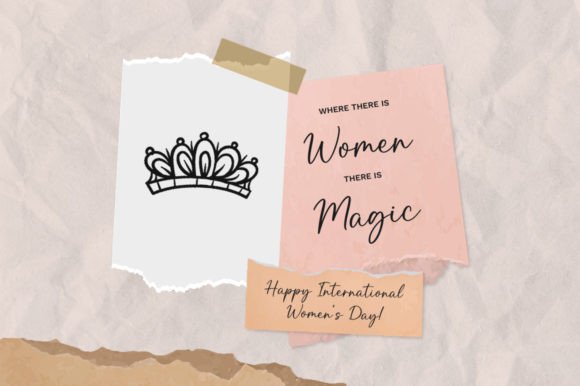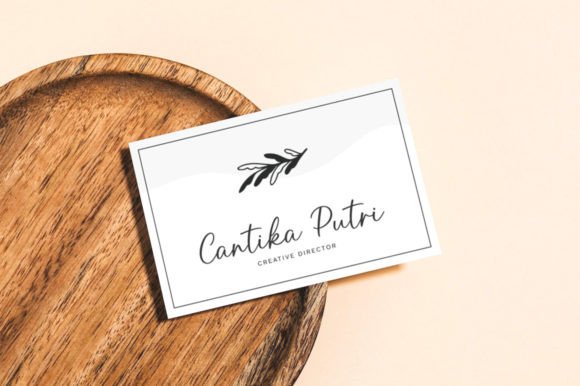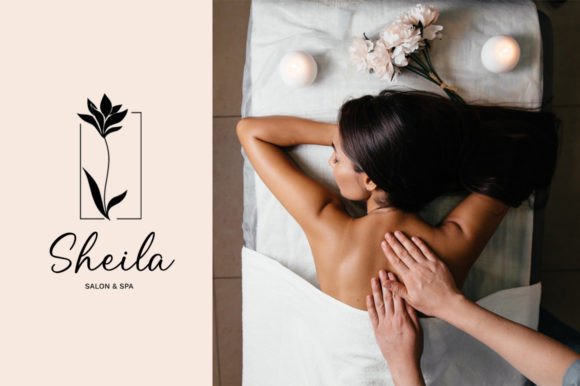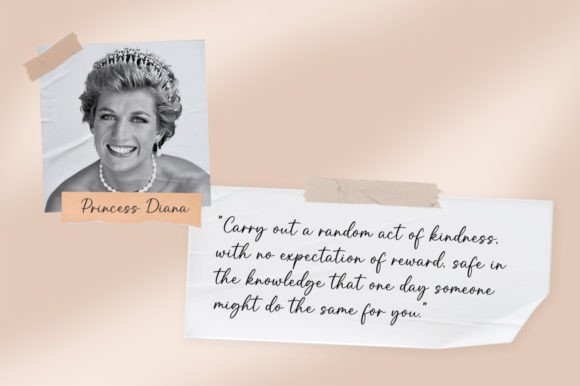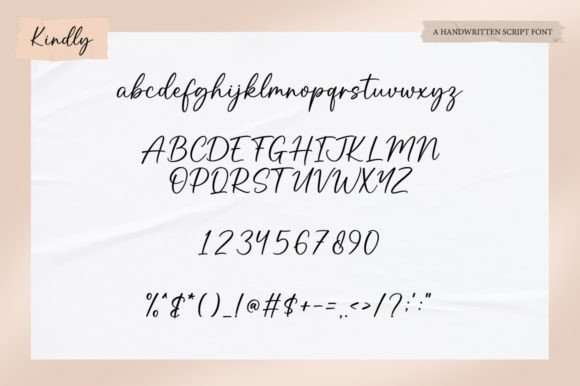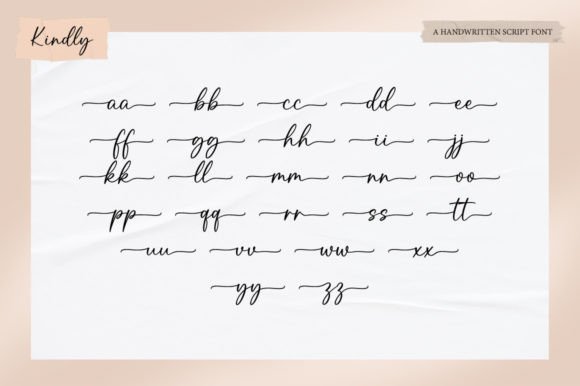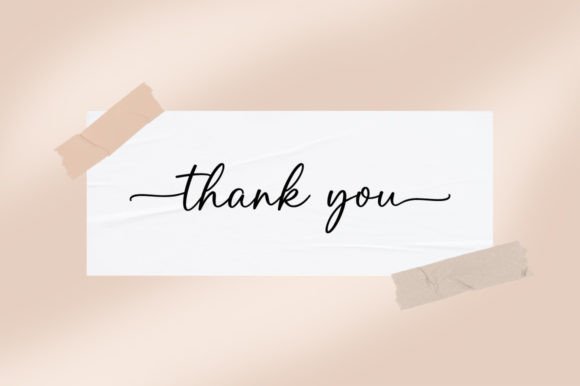
Kindly Font
About Kindly Font
“Kindly” is a delicate, elegant, and gracefully flowing handwritten font characterized by its beautifully well-balanced characters. This font is an excellent choice for a wide range of design applications, thanks to its versatile and refined style. Additionally, “Kindly” is PUA encoded, which allows for easy access to all its glyphs and swashes, offering enhanced creative flexibility.
With its elegant and flowing script, “Kindly” is a valuable asset for various design projects. Whether you’re working on branding, invitations, quotes, packaging, or any other creative endeavor, this font enhances the visual appeal of your work.
In the realm of branding and corporate identity, “Kindly” introduces a distinctive and stylish script that can effectively represent your brand. Its delicate and well-crafted characters add a touch of sophistication and timeless elegance to your brand, helping it make a lasting impression.
Invitations and event materials take on a refined and timeless look with the use of “Kindly.” Whether it’s for weddings, parties, or special occasions, this font adds a touch of elegance, making your invitations and event designs truly captivating.
Quotes and inspirational messages become more visually striking with “Kindly.” Its well-balanced characters enhance the beauty of your words, making them resonate deeply with your audience.
Packaging designs benefit from “Kindly’s” delicate and elegant script, making your products appear more upscale and sophisticated. It helps you create packaging that captures the attention of consumers and communicates quality.
In summary, “Kindly” is a delicate, elegant, and flowing handwritten font that excels in conveying sophistication and timeless beauty. Its versatility and PUA encoding for easy glyph and swash access make it an invaluable tool for designers and creatives aiming to create visually appealing and captivating designs.